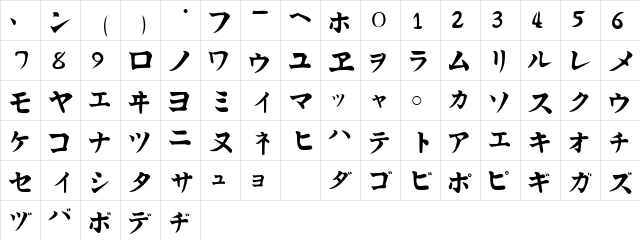
Kata Kana
Style: Kana
Kata Family
Complete Kata Kana glyph index. Displaying only characters natively supported by Kata Kana font.
Design Context for Kata
Kata is a composed and adaptable typeface that performs quietly and consistently across a wide range of design contexts.